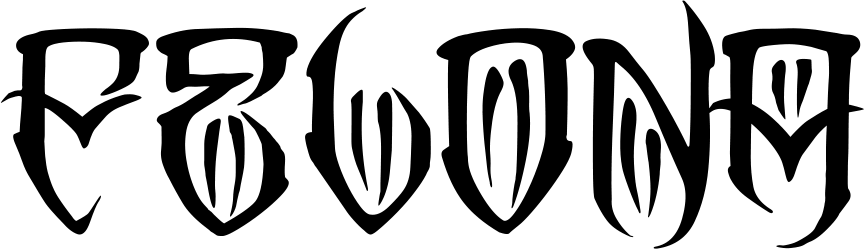
Felona Font
Felona is a script font that does not support numbers and punctuation, also it does not have high readability. This Chicano font was designed in a very creative and unique way, so by using this font in designing graphic…
Felona is a script font that does not support numbers and punctuation, also it does not have high readability. This Chicano font was designed in a very creative and unique way, so by using this font in designing graphic content such as logos, posters, and billboards, you can convey an innovative and exciting feeling.